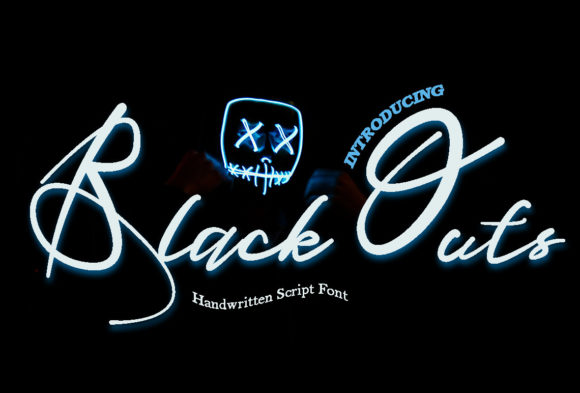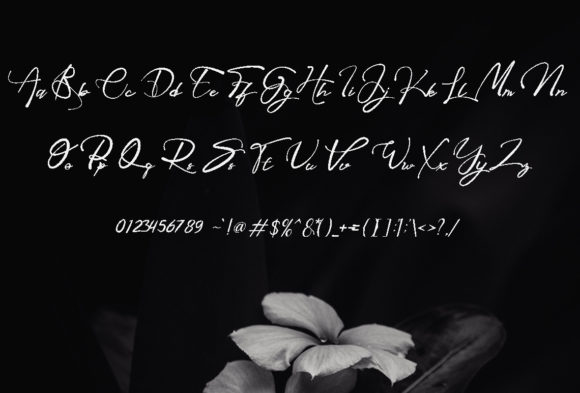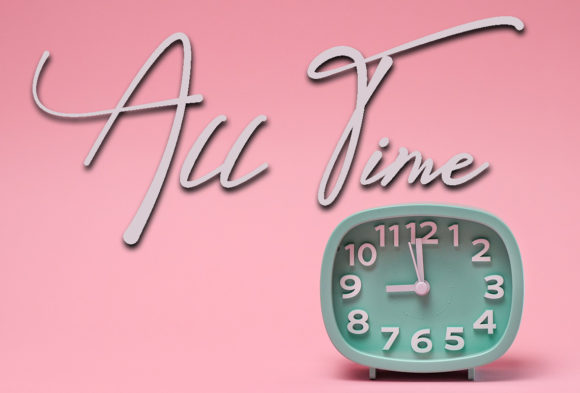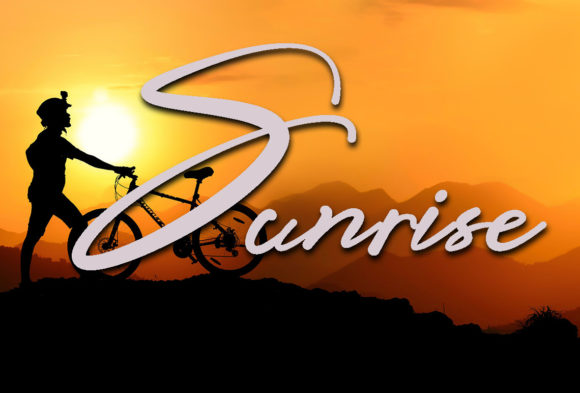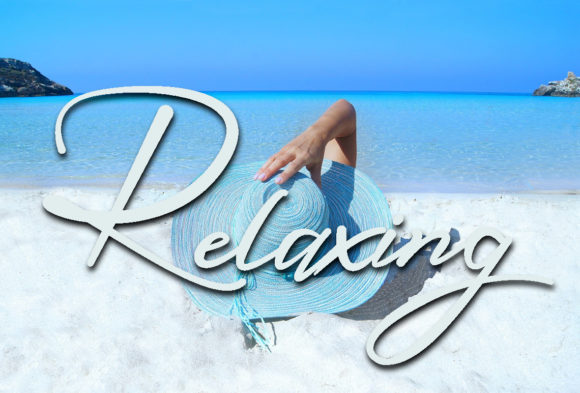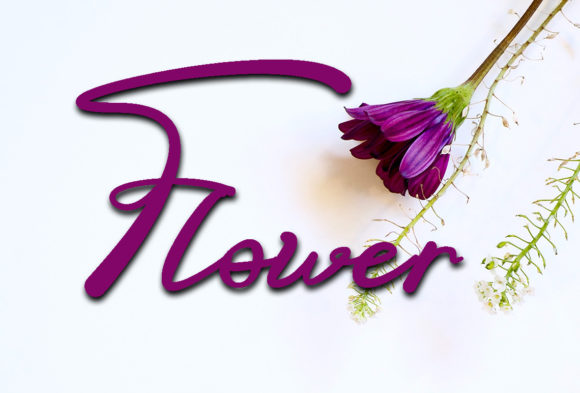
The Sweet Charm of Black Outs Font: A Designer’s Delight
I’ll never forget the time I was working on a wedding invitation design project, and my client asked for a font that was elegant, yet playful. I scoured the internet, trying out font after font, but nothing seemed quite right. That was until I stumbled upon Black Outs Font. This sweet and cursive handwritten font has been a game-changer for me, and I’m excited to share its charm with you! ✨
An Honest Review of Black Outs Font
- ✨ Elegant yet approachable: Black Outs Font has a sophisticated feel that’s perfect for wedding invitations, thank you cards, and other formal designs.
- ✅ Versatile: This font looks stunning on a variety of design ideas, from quotes and greeting cards to logos and business cards.
- 💕 Handwritten charm: The cursive script and gentle curves of Black Outs Font give it a warm, personal touch that’s hard to find in digital fonts.
While Black Outs Font is a beautiful addition to any design, there are a few things to keep in mind: 🤔
- ⚠️ Limited use in body text: Due to its cursive nature, Black Outs Font may not be the best choice for long blocks of body text. It’s better suited for headings, titles, and short paragraphs.
- ⚠️ Requires attention to spacing: As with any script font, it’s essential to adjust the spacing between letters to ensure optimal readability.
- Experiment with OpenType features, such as Stylistic Alternates and Swashes, to add more flair to your design.
- Explore the Glyphs panel to access additional characters, such as ligatures and stylistic alternates.
The Designer Inspiration Behind Black Outs Font
Black Outs Font was created with the intention of capturing the elegance and charm of handwritten script. The designer, inspired by the beauty of handwritten letters and the art of calligraphy, crafted a font that’s both sophisticated and approachable.
Q: What type of designs is Black Outs Font best suited for?
A: Black Outs Font is perfect for designs that require a touch of elegance and sophistication, such as wedding invitations, thank you cards, quotes, and greeting cards.